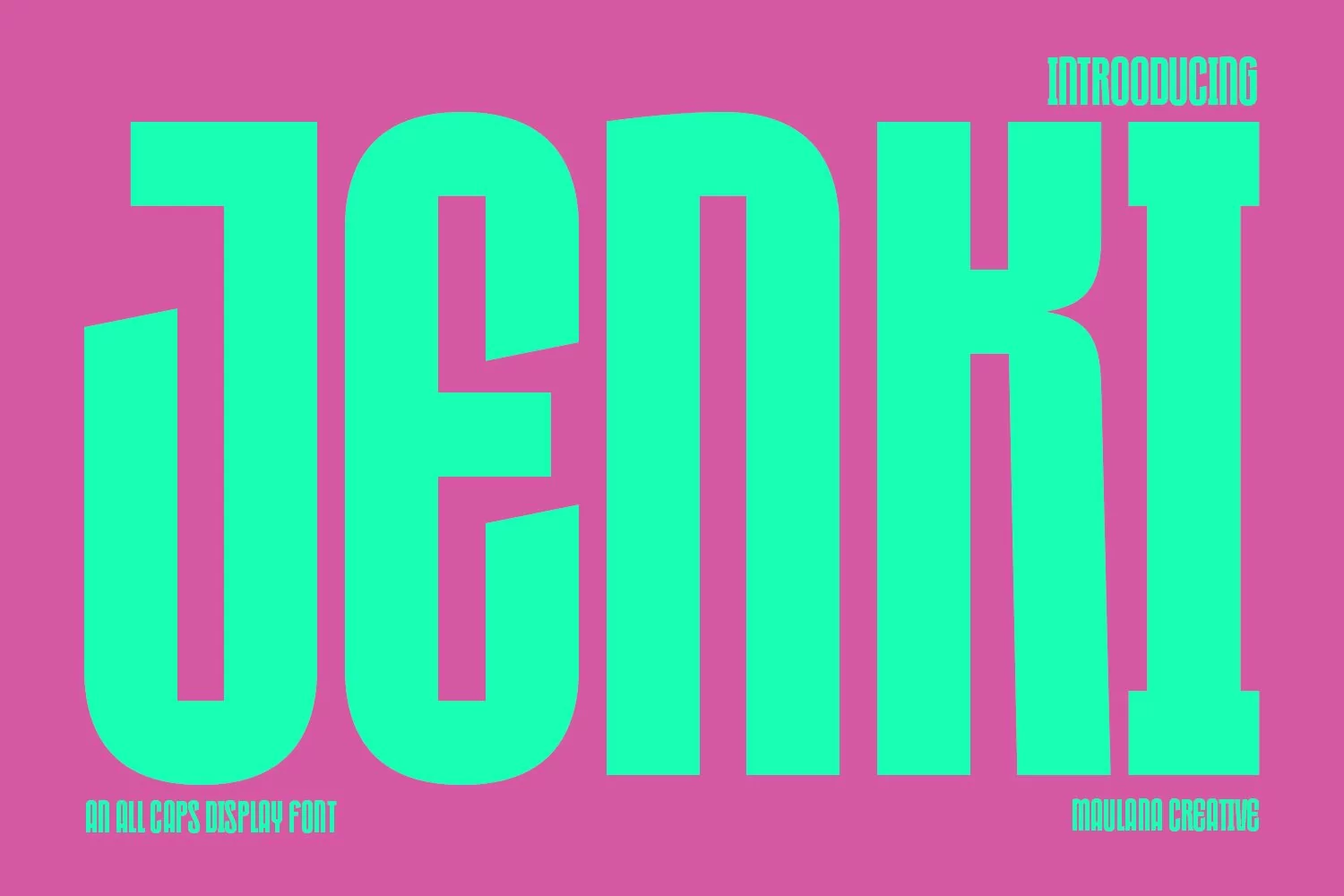
Jenki is an all caps sans serif display font. With medium consist stroke, fun character with a bit of ligatures, To give you an extra creative work. Jenki font support multilingual more than 100+ language. This font is good for logo design, Social media, Movie Titles, Books Titles, a short text even a long text letter and good for your secondary text font with sans or serif. Make a stunning work with Jenki font.